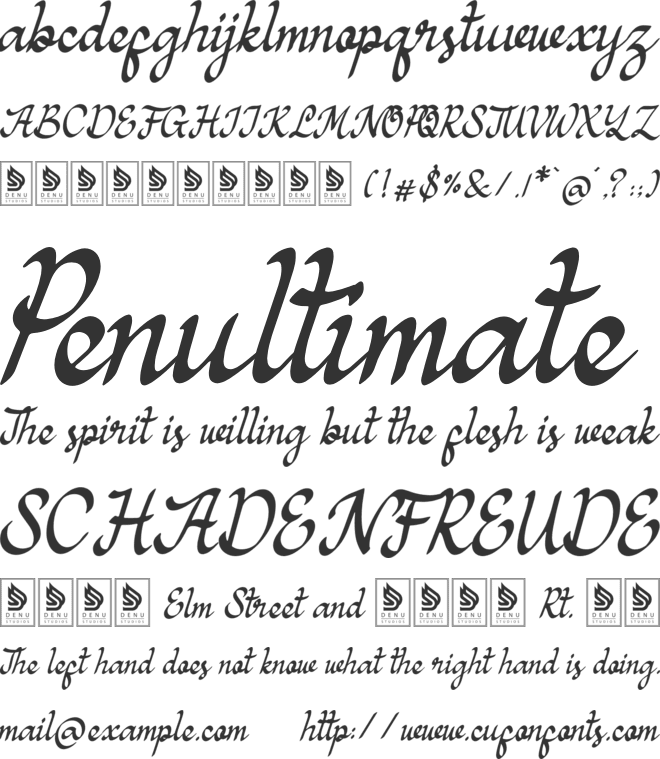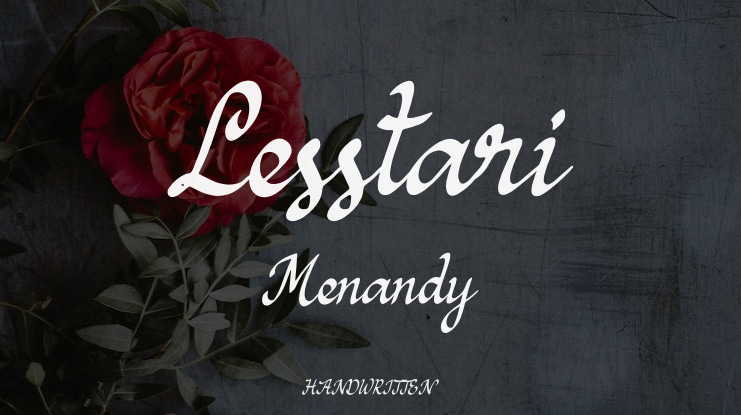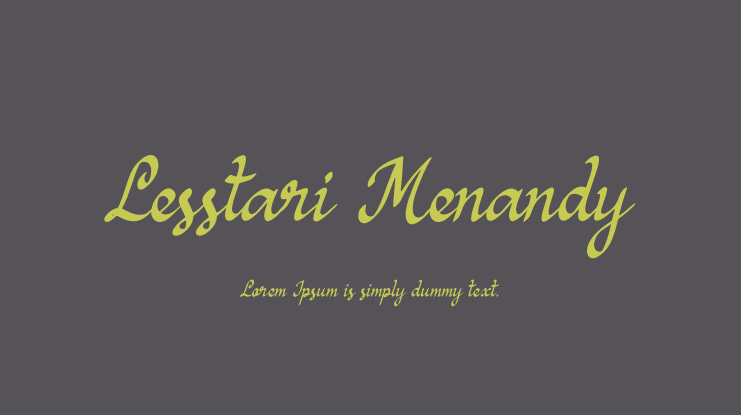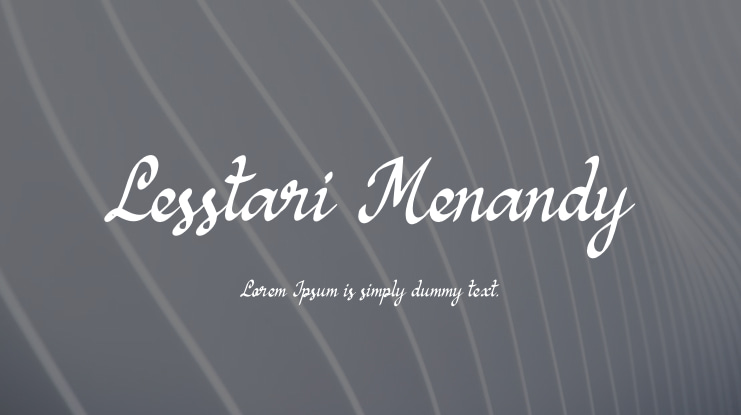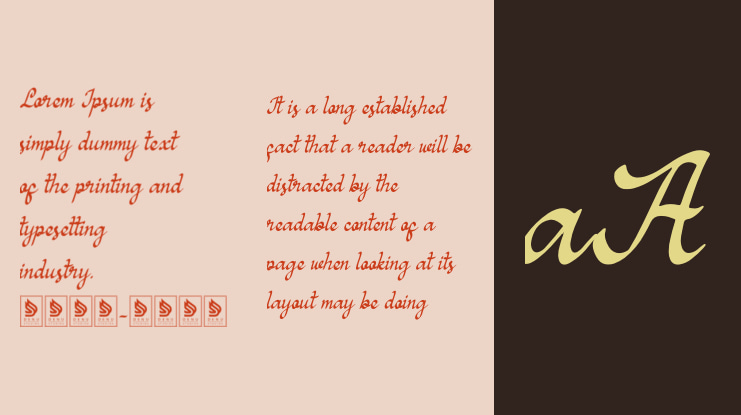
Lesstari Menandy Font
Lesstari Menandy | Handwritten Script is suitable for various projects, including logos, branding, homeware designs, product packaging, mugs, quotes, posters, shopping bags, t-shirts, book covers, name cards, invitation cards, greeting cards, labels, photography, watermarks, special events, and any other lovely projects requiring a Handwritten Script touch.